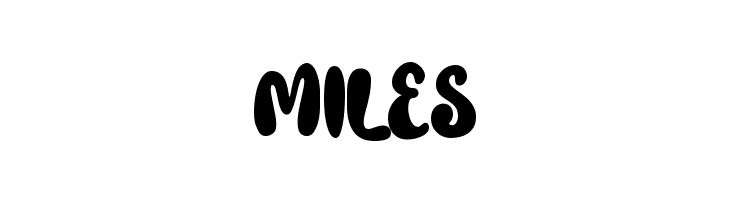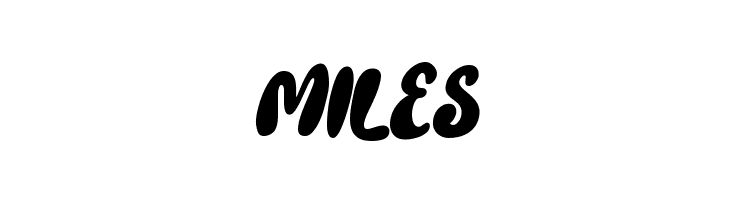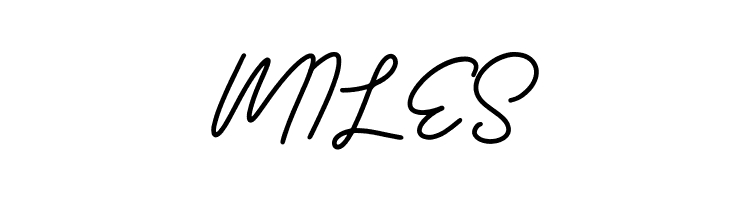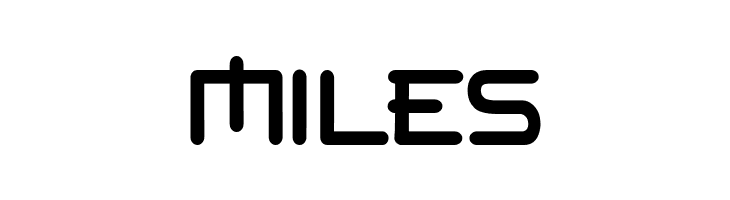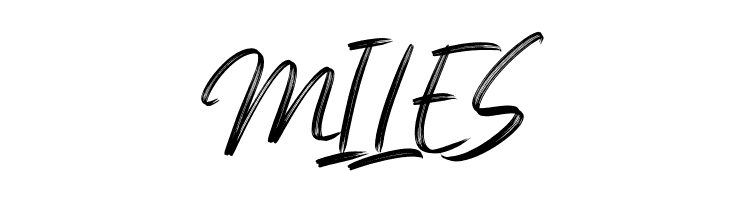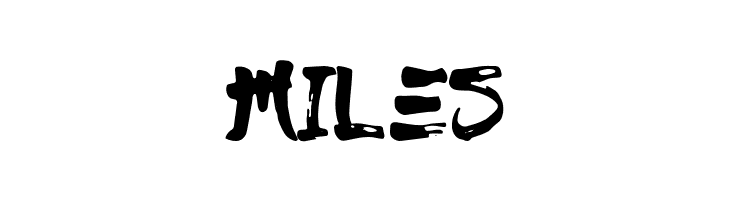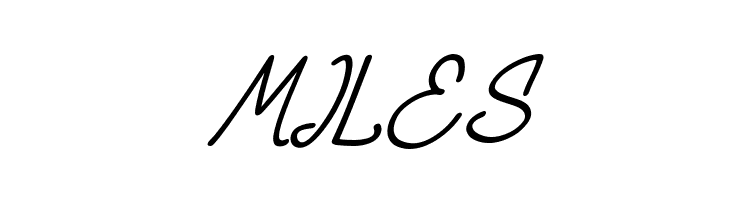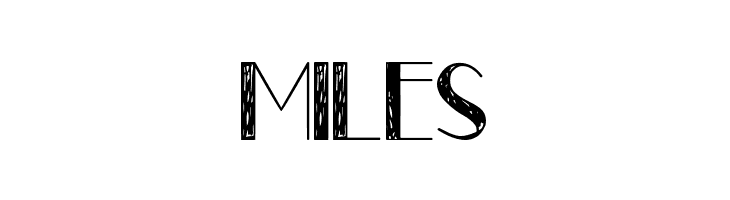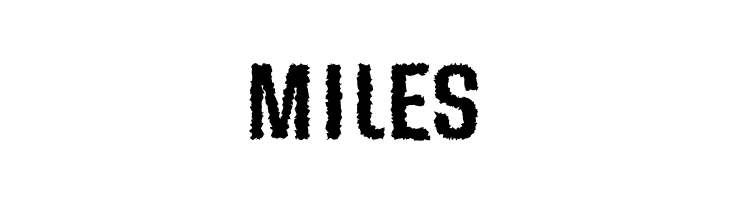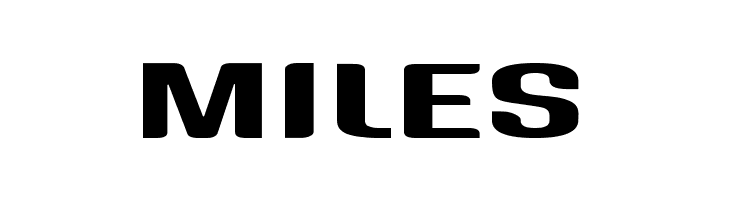
A pixelated, grid-based font reminiscent of retro digital displays.
A segmented, digital display-inspired font with a geometric, blocky style.
A bold, modern sans-serif font with rounded edges and uniform stroke width.
A modern, outline-style font with bold, uniform lines and geometric shapes.
A modern, thin sans-serif font with geometric influences and rounded edges.
A flowing, elegant script font with a natural handwritten style.
A dynamic, fluid script font with elegant, flowing strokes and a cursive appearance.
A bold, cursive script font with elegant loops and a handwritten feel.
A graceful script font with flowing, connected strokes and a calligraphic style.
A modern, elegant font with angular uppercase and cursive lowercase letters.
A bold, rounded font with a futuristic and geometric style.
A bold, italicized font with rounded, playful characters.
A modern, flowing italic font with rounded, connected characters.
A futuristic, hollow, and geometric font with a modern aesthetic.
A futuristic, geometric font with rounded edges and a playful, alien-like aesthetic.
A modern, futuristic font with bold, rounded strokes and a playful yet sophisticated style.
A playful, casual handwritten font with smooth, flowing lines and a personal touch.
An elegant script font with fluid, connected strokes and a sophisticated appearance.
A graceful, handwritten script font with flowing, interconnected letters.
A bold, expressive handwritten font with thick, rounded strokes.
A graceful, cursive script font with elegant, flowing strokes.
A playful and elegant handwritten script font with unique embellishments.
A playful and energetic script font with fluid, cursive strokes.
A dynamic, cursive script font with a natural, handwritten style.
A dynamic and elegant script font with flowing, cursive letterforms.
A playful and energetic script font with a handwritten style.
A playful handwritten font with thin, flowing lines and whimsical letterforms.
A flowing, cursive font with elegant, interconnected characters.
A playful and whimsical script font with flowing, interconnected letterforms.
A bold, playful font with chunky, rounded characters.
A playful, handwritten font with a smooth, flowing style.
A playful handwritten font with fluid, connected strokes and a casual style.
An elegant script font with flowing, intricate loops and swashes.
An elegant and flowing script font with graceful curves and loops.